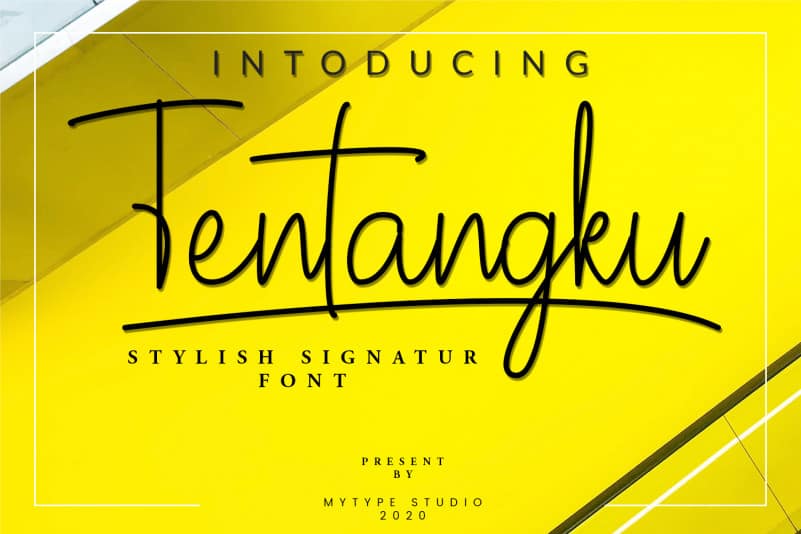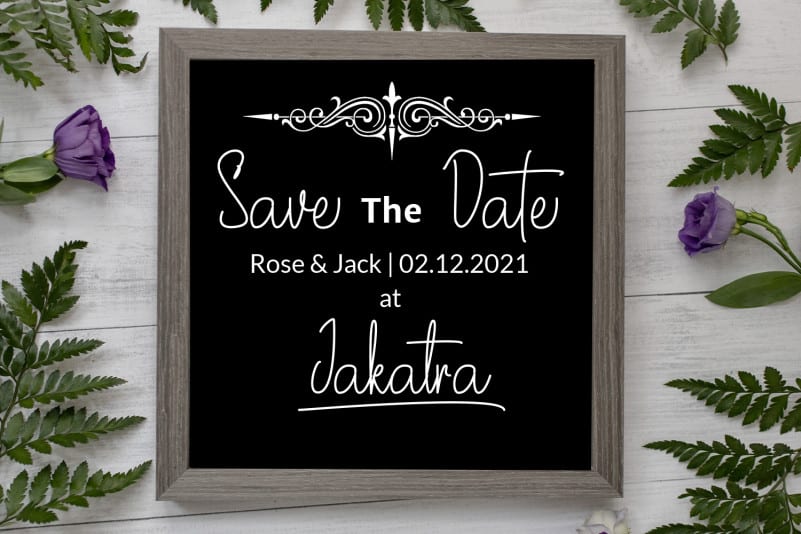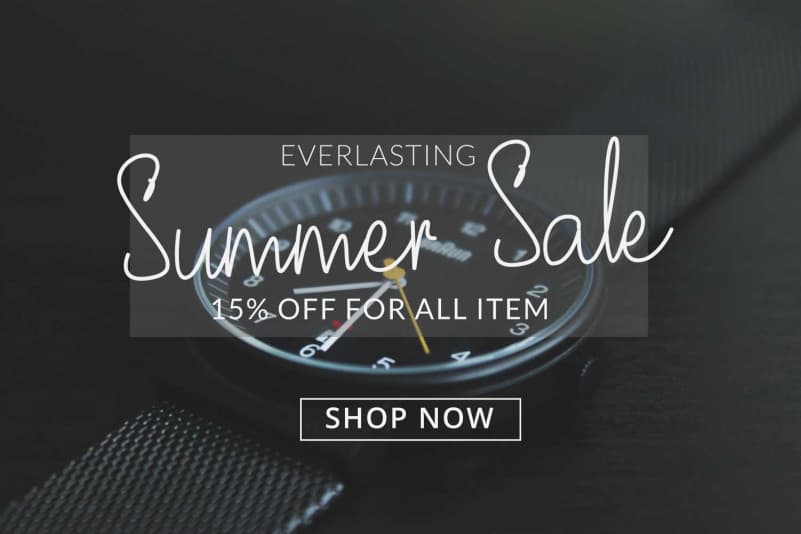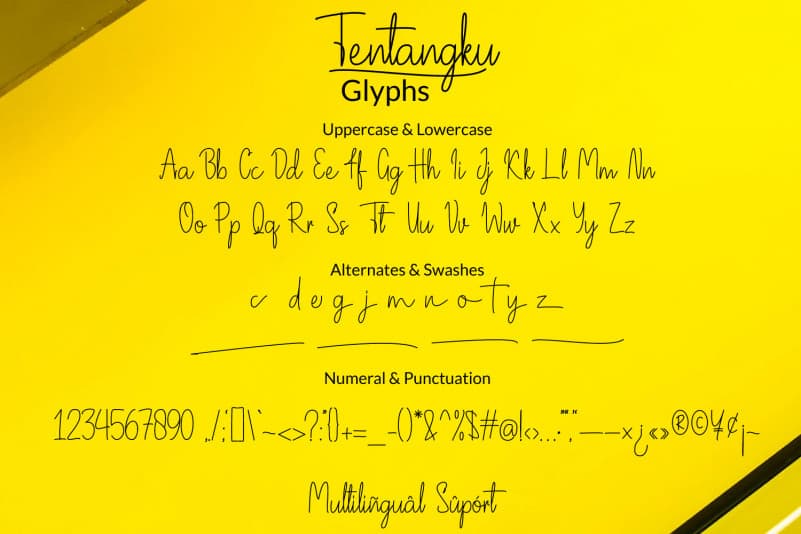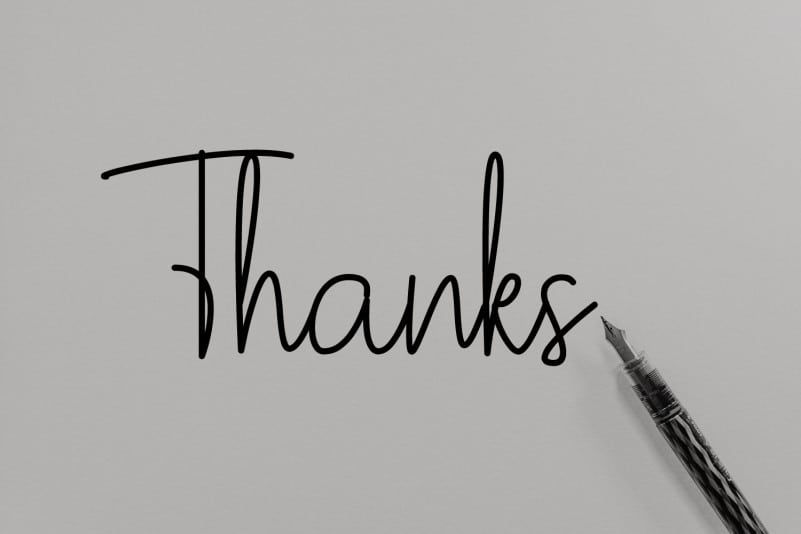
Tentangku Signature Font
Tentangku Signature Font is a new modern & fresh script with a handwritten and script style make this font looks elegant, natural, stylish and perfect for any awesome projects that need handwriting taste .
would perfect for photography, watermark, social media posts, advertisements, logos & branding, invitation, product designs, label, stationery, wedding designs, product packaging, special events or anything that need handwriting taste.